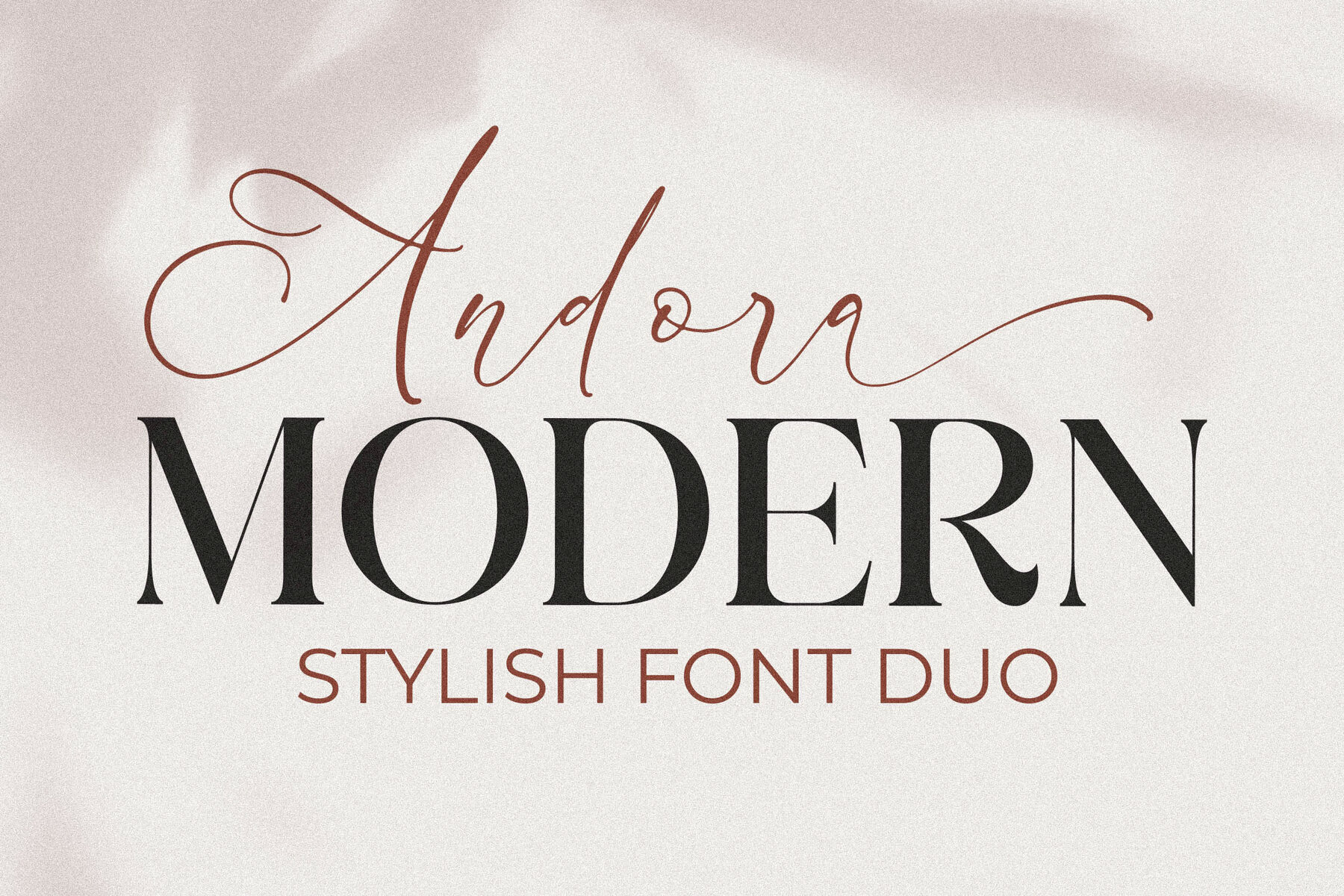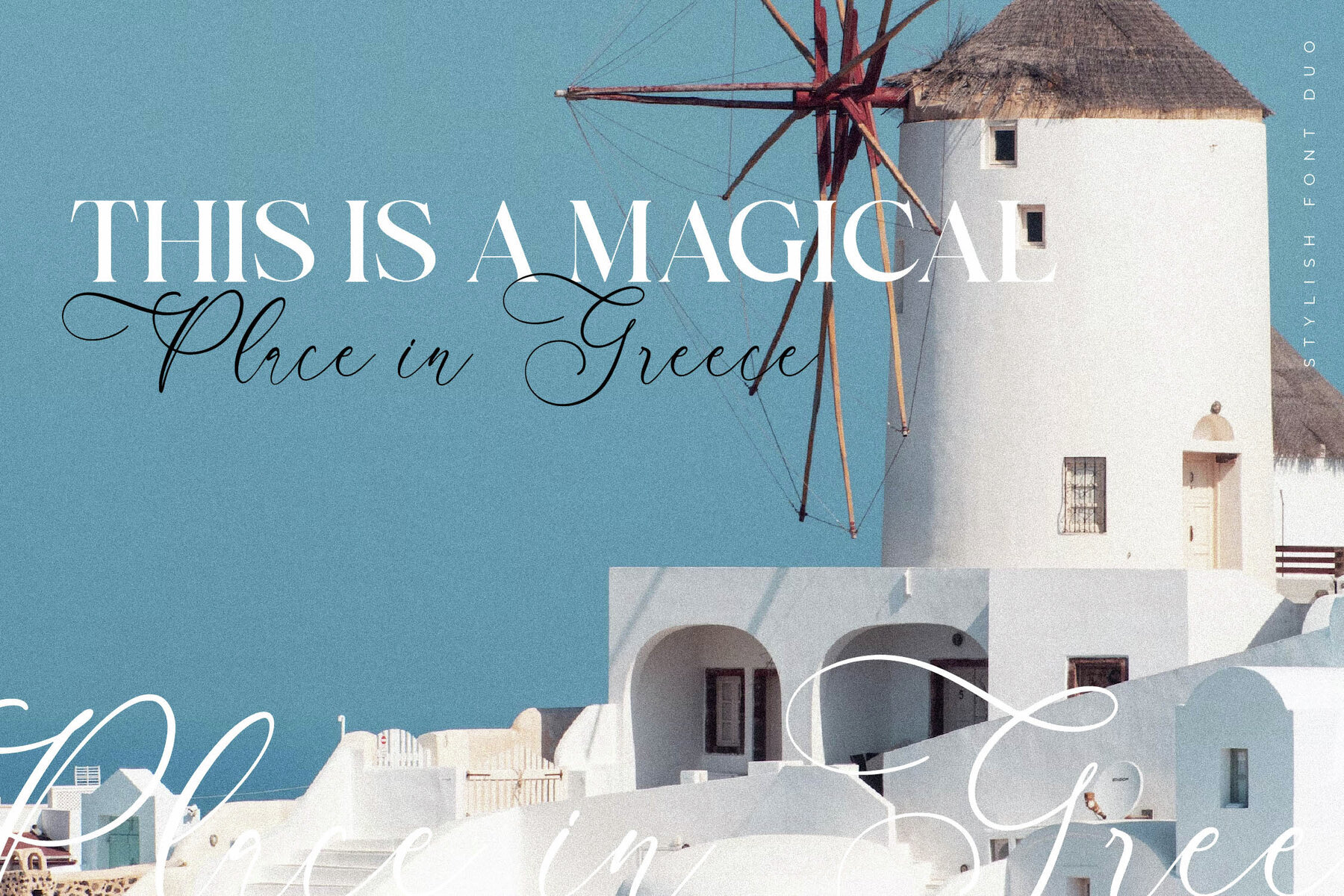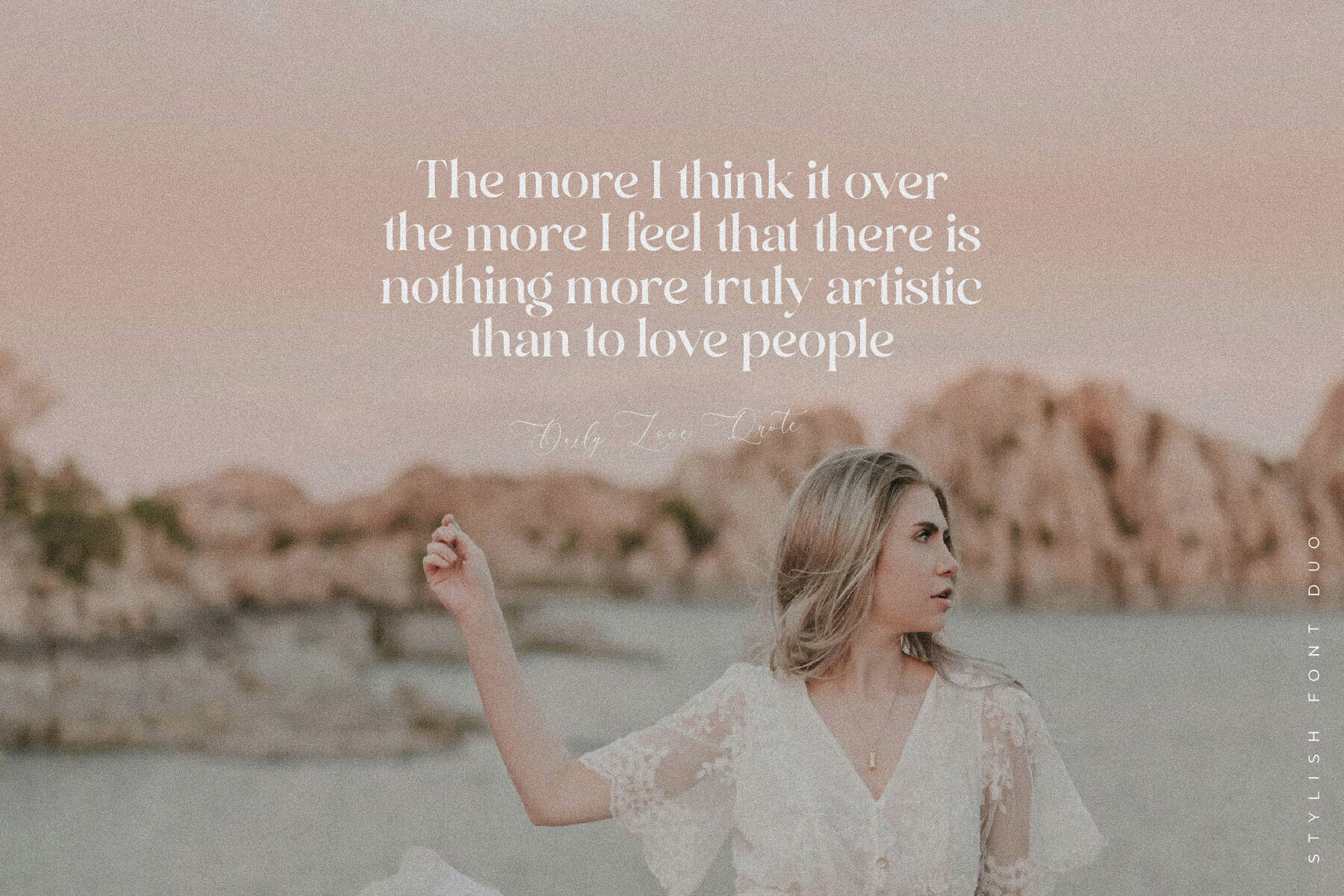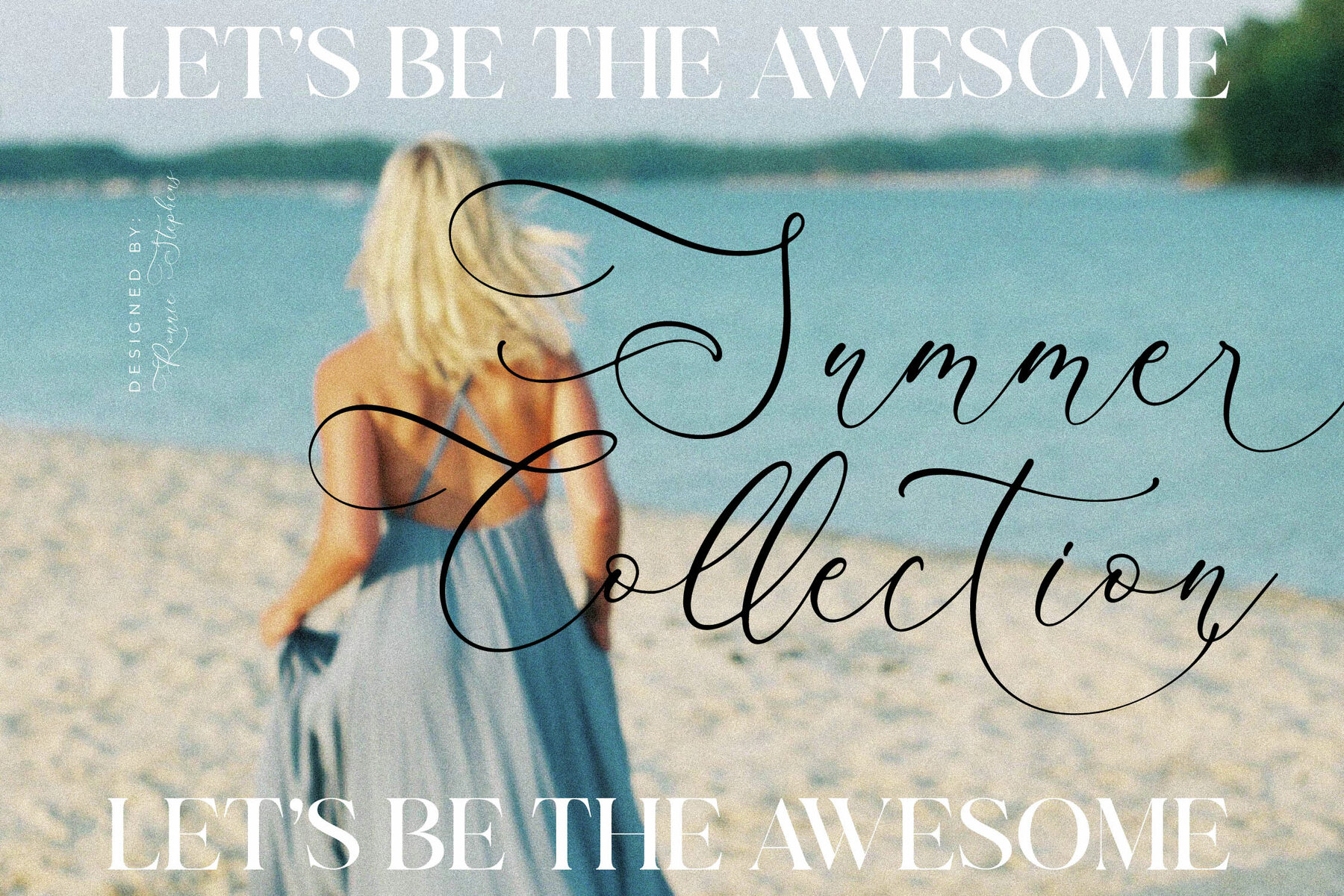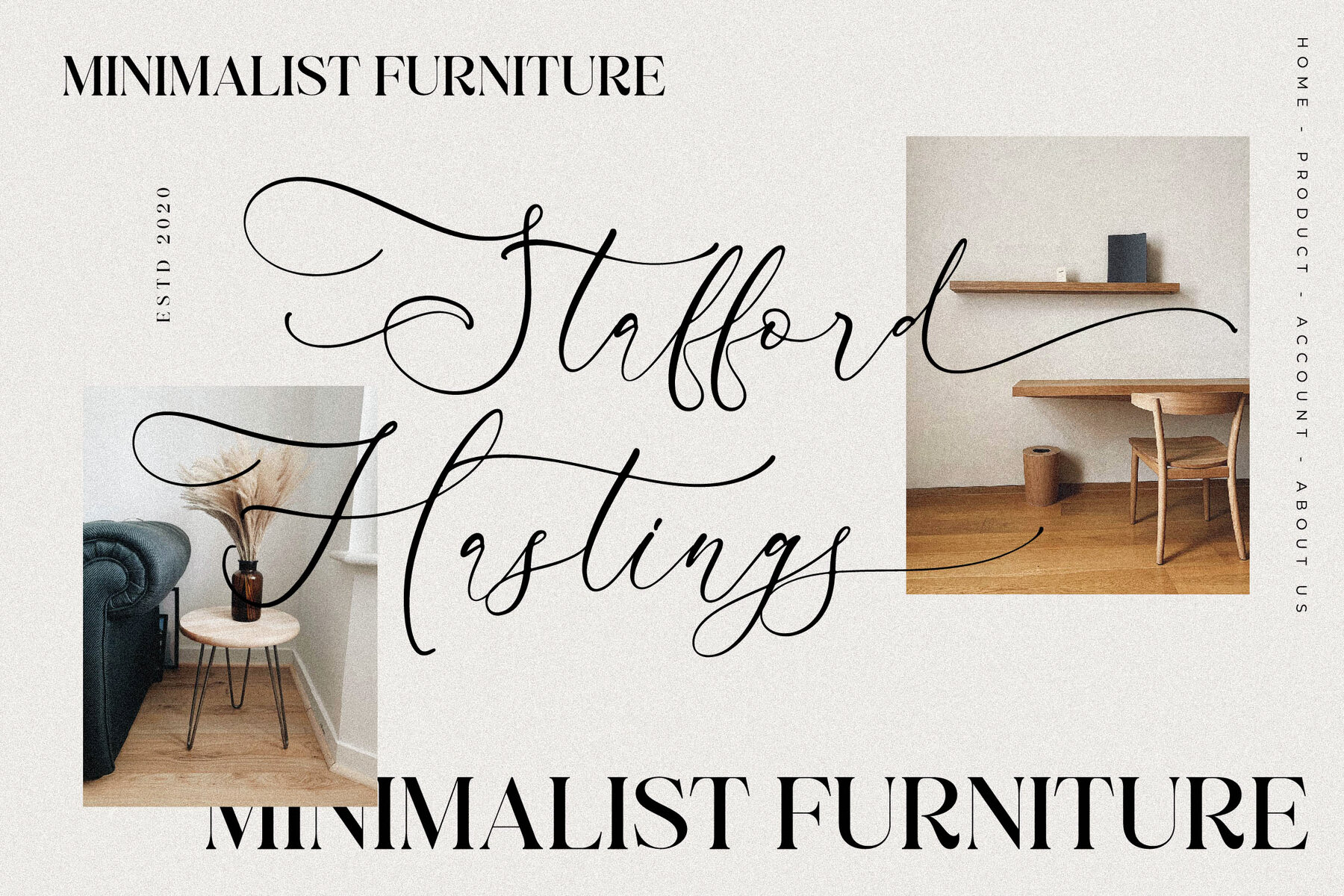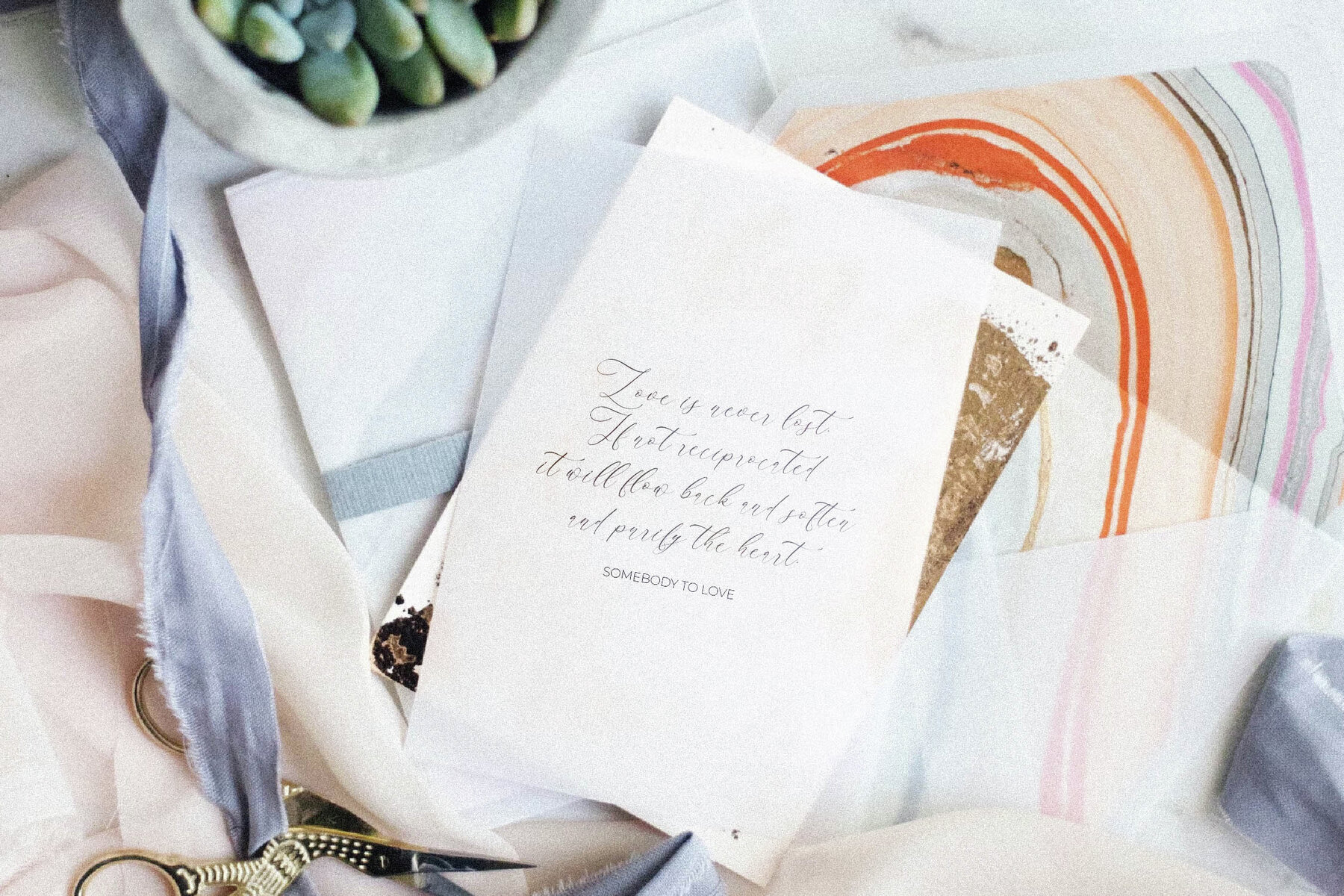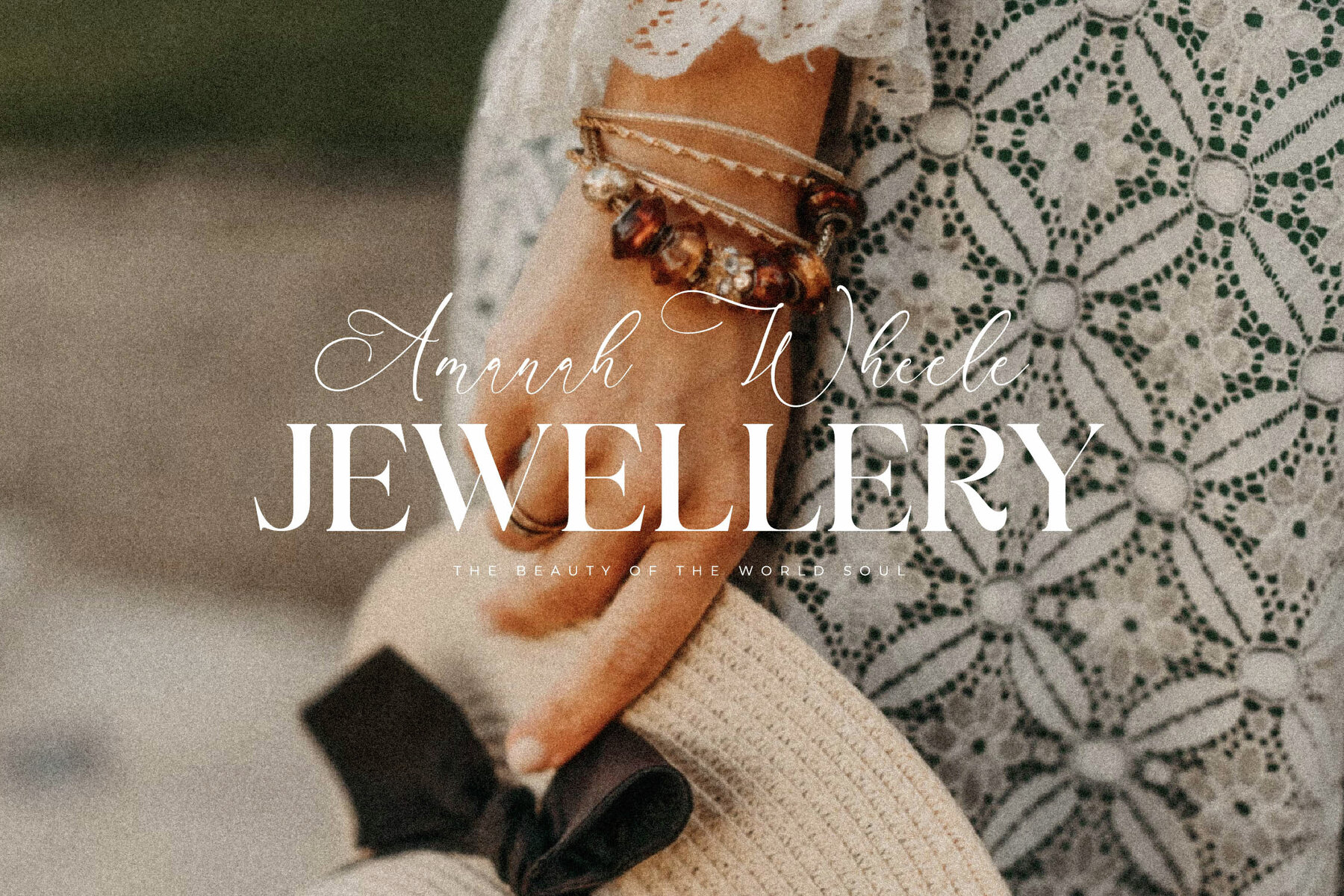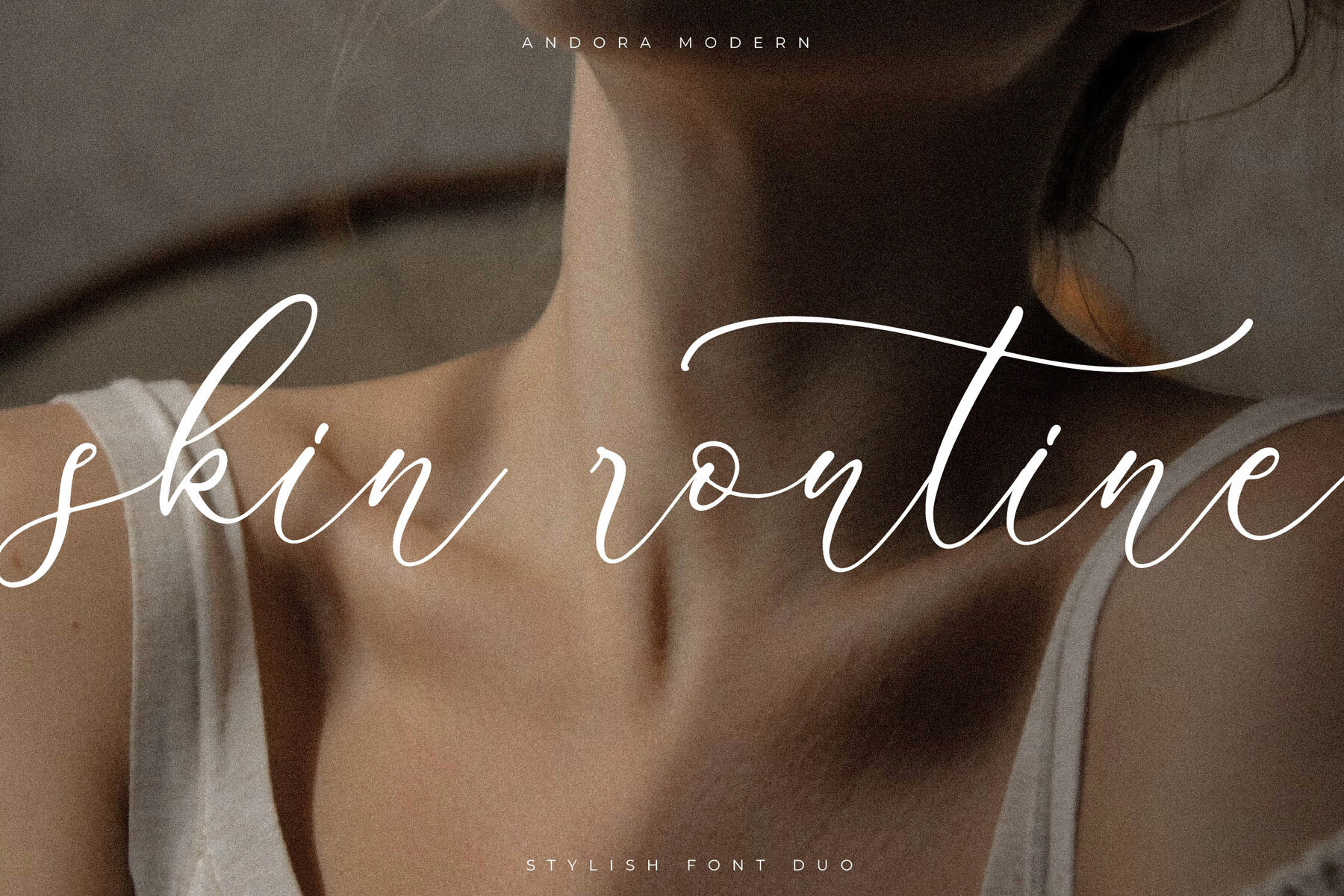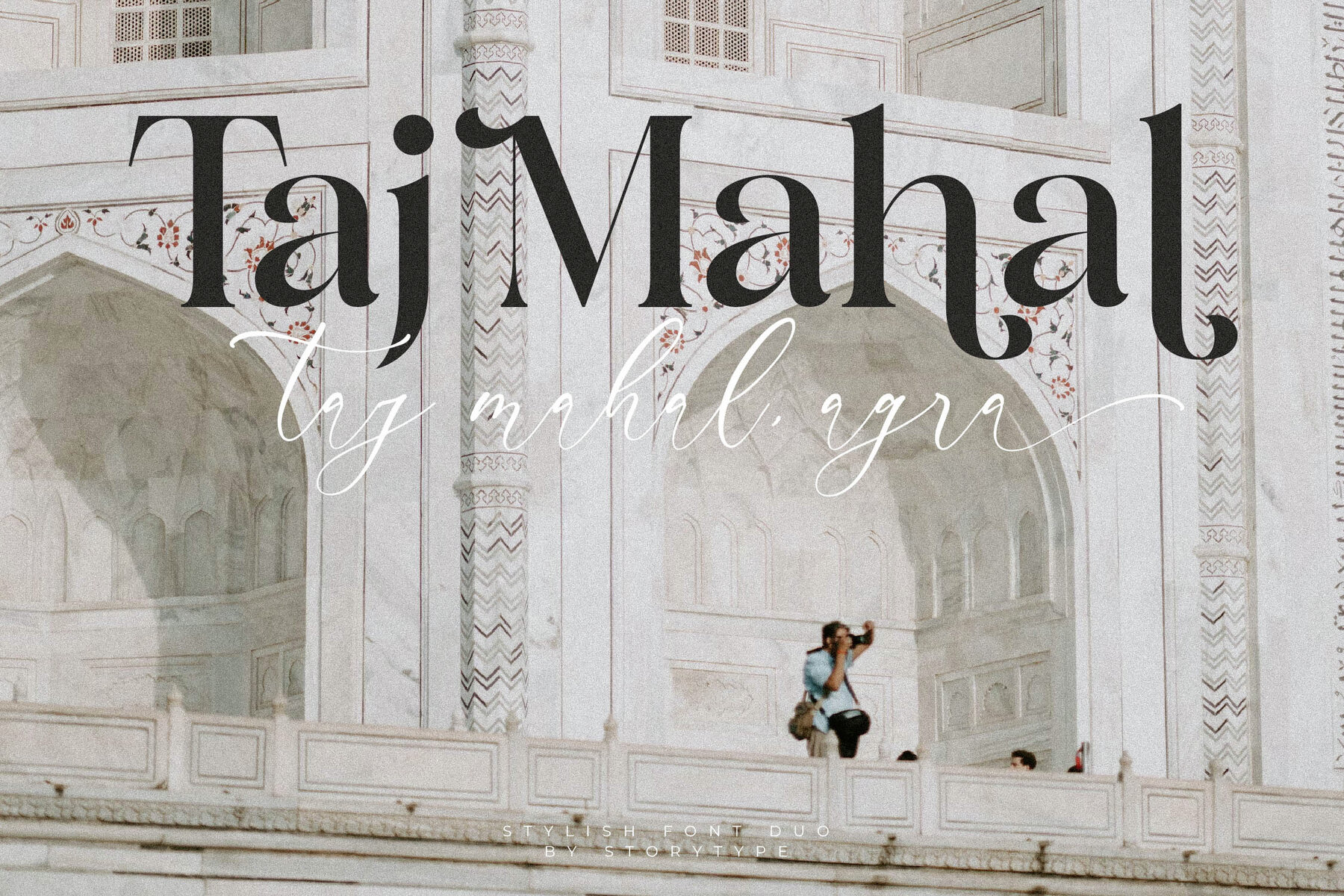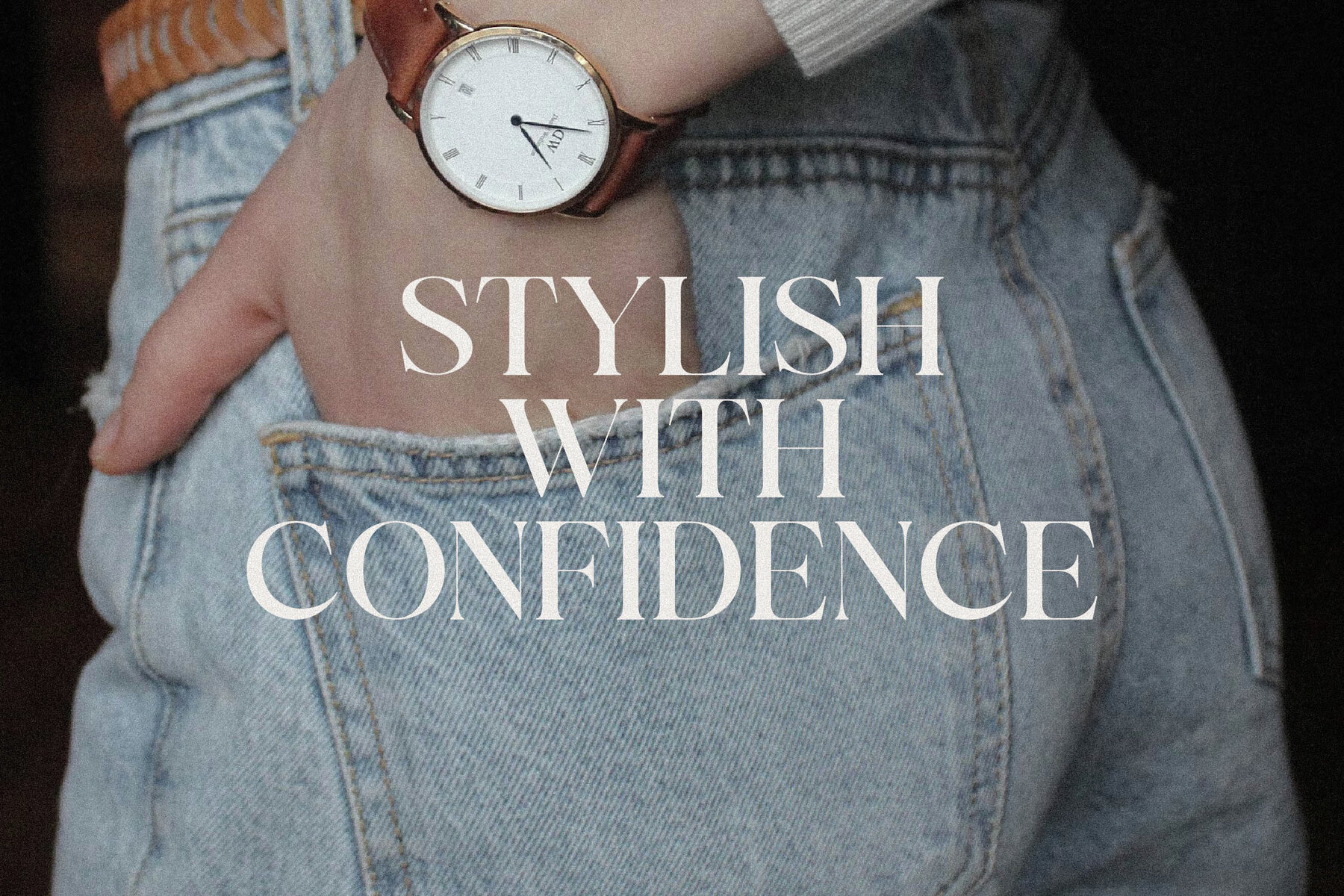
Andora Modern Font
Andora Modern Script
Andora Modern Script Italic
Andora Modern Serif
Andora Modern Serif Italic
Andora Modern Font Duo is a seamless fusion of serif and script styles, designed to infuse your projects with a distinctive modern flair. Perfect for those seeking elegance and luxury in their logos, book titles, fashion brands, or magazine layouts, this typeface offers versatility and style. Imagine the impact of your clothes and lettering projects adorned with this sophisticated font.Discover the Elegance of Andora Modern Font Duo